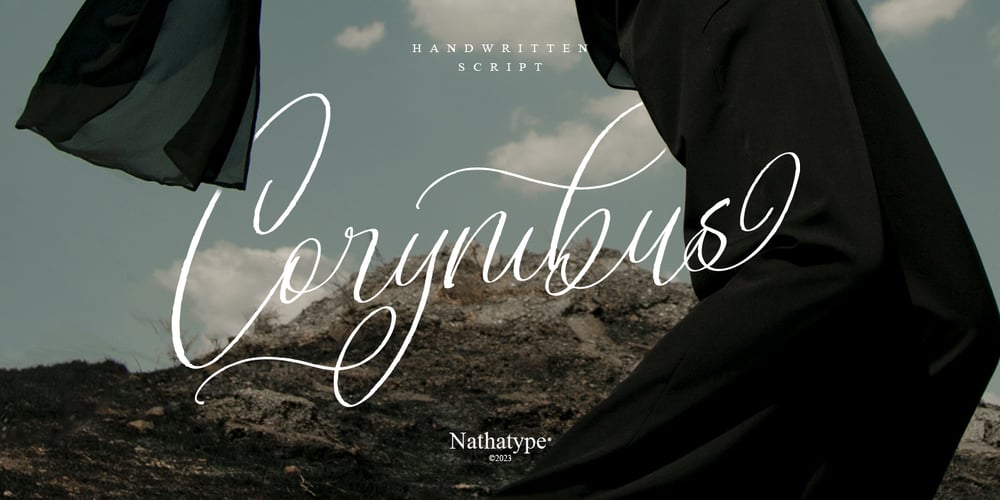
Corymbus Font Family was designed by Donis Miftahudin and published by Nathatype. Corymbus contains 1 styles and family package options. Unveil the artistry of the written word with Corymbus, a script font that captures the beauty of handwriting. The interplay between thick and thin lines creates a visual feast for the eyes. The whimsical irregularity mirrors the fluidity of natural handwriting. The distinctive hallmark of this font lies in its swinging endings-each letter playfully extends beyond its baseline, creating a sense of rhythm. Corymbus fits in headlines, logos, print media, editorial layouts, and many more.